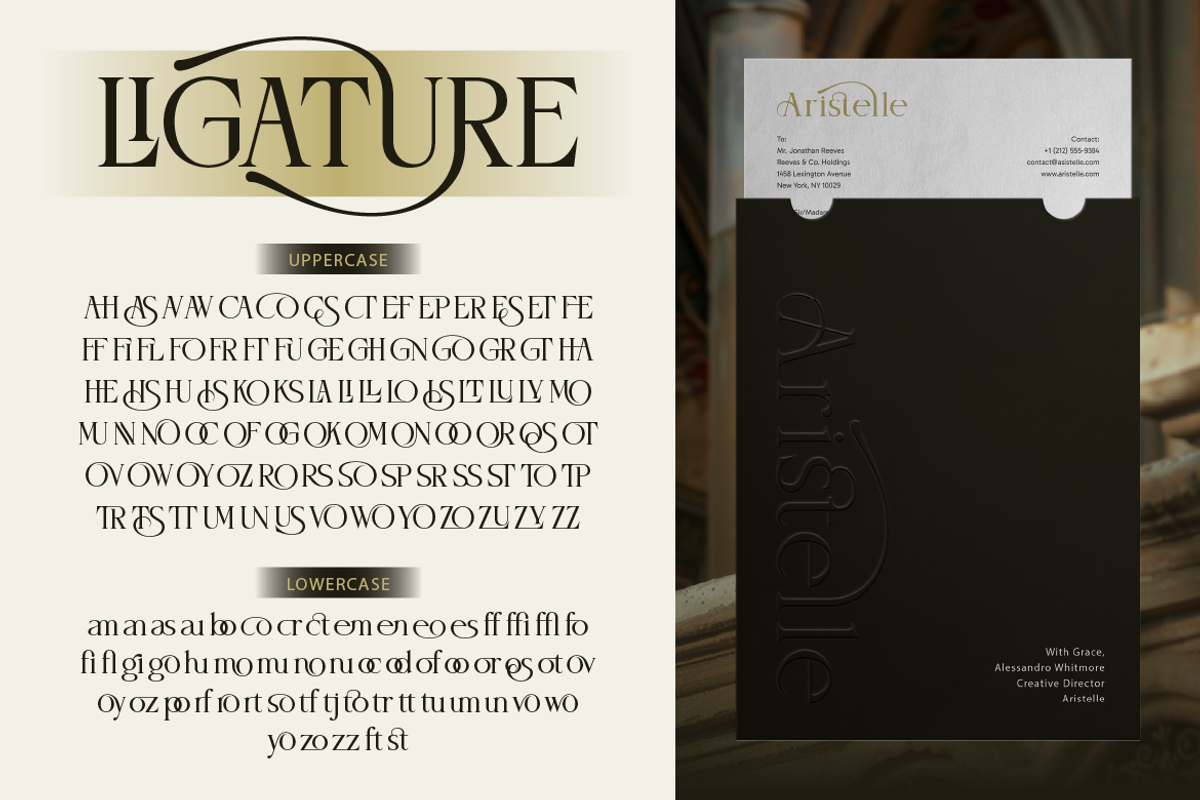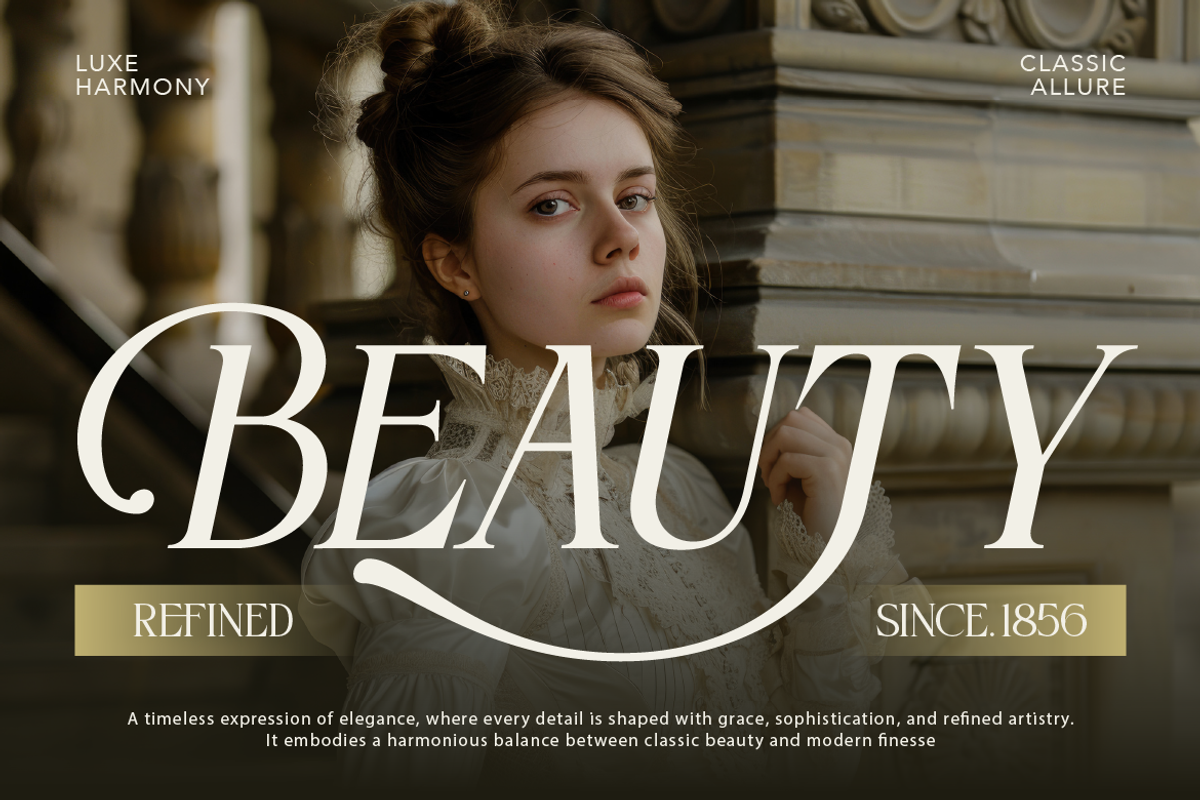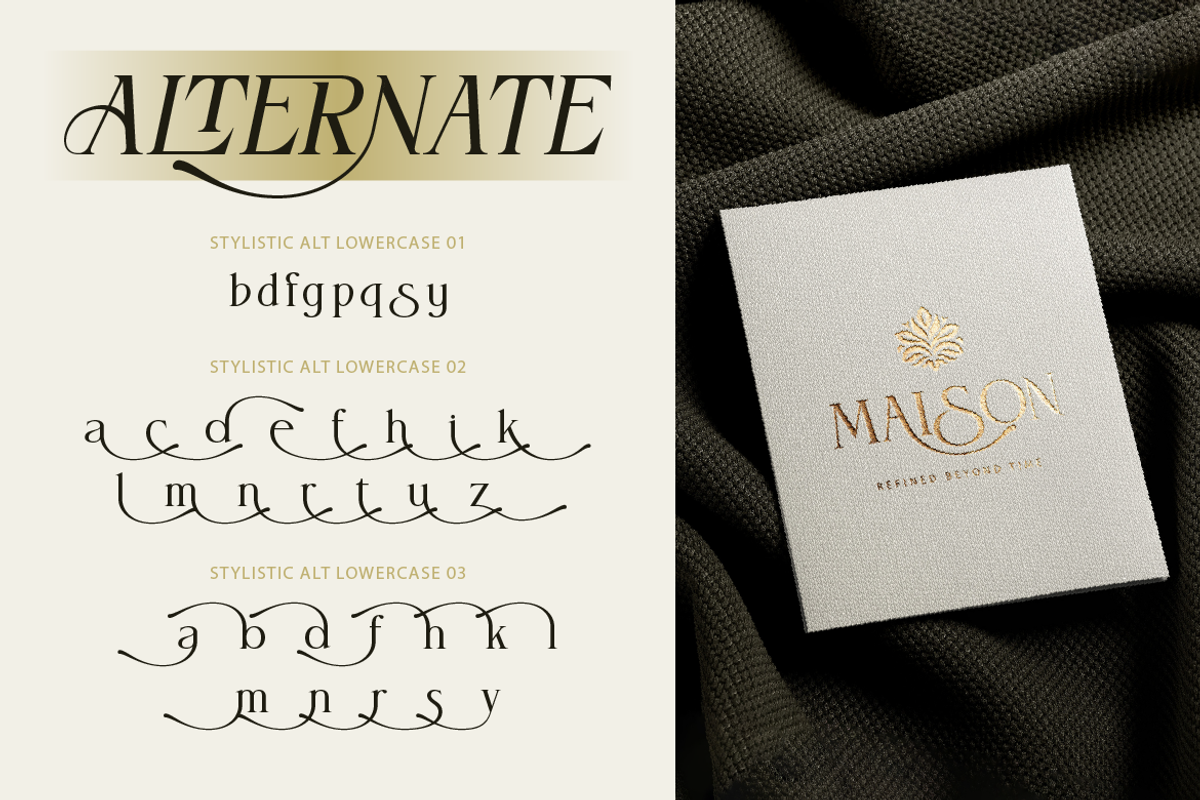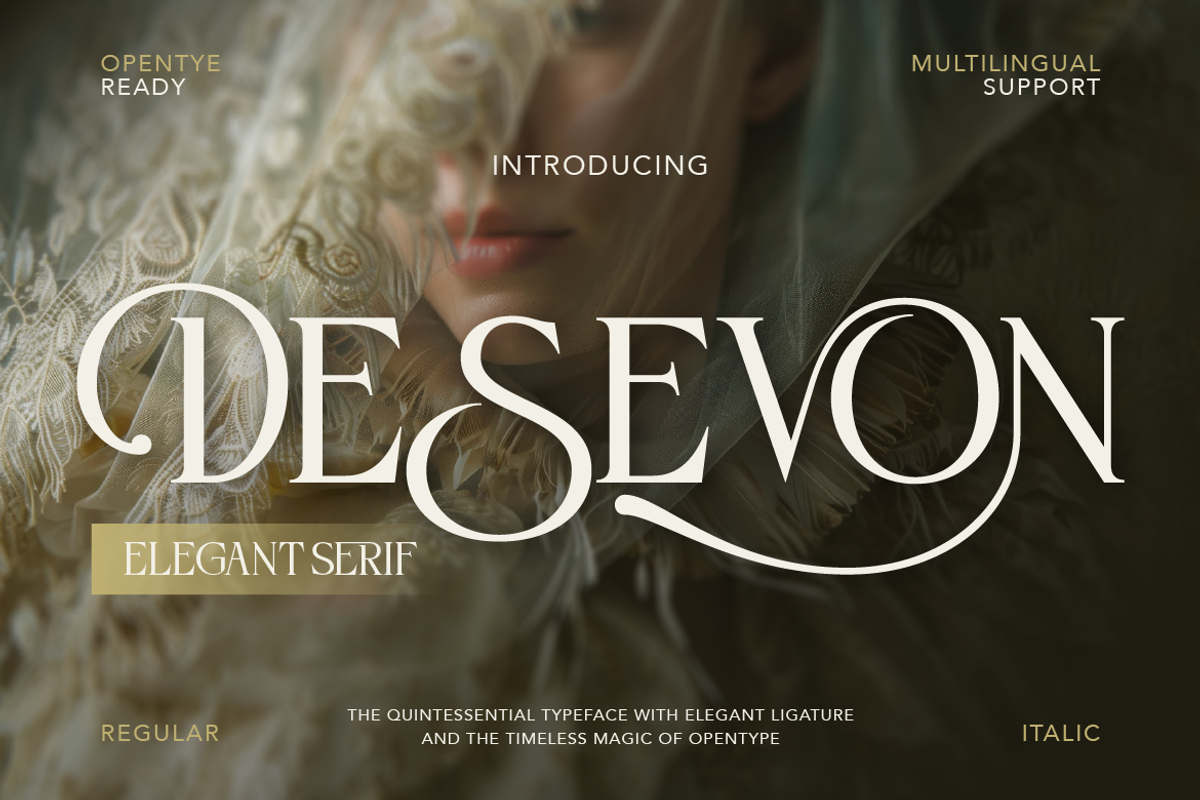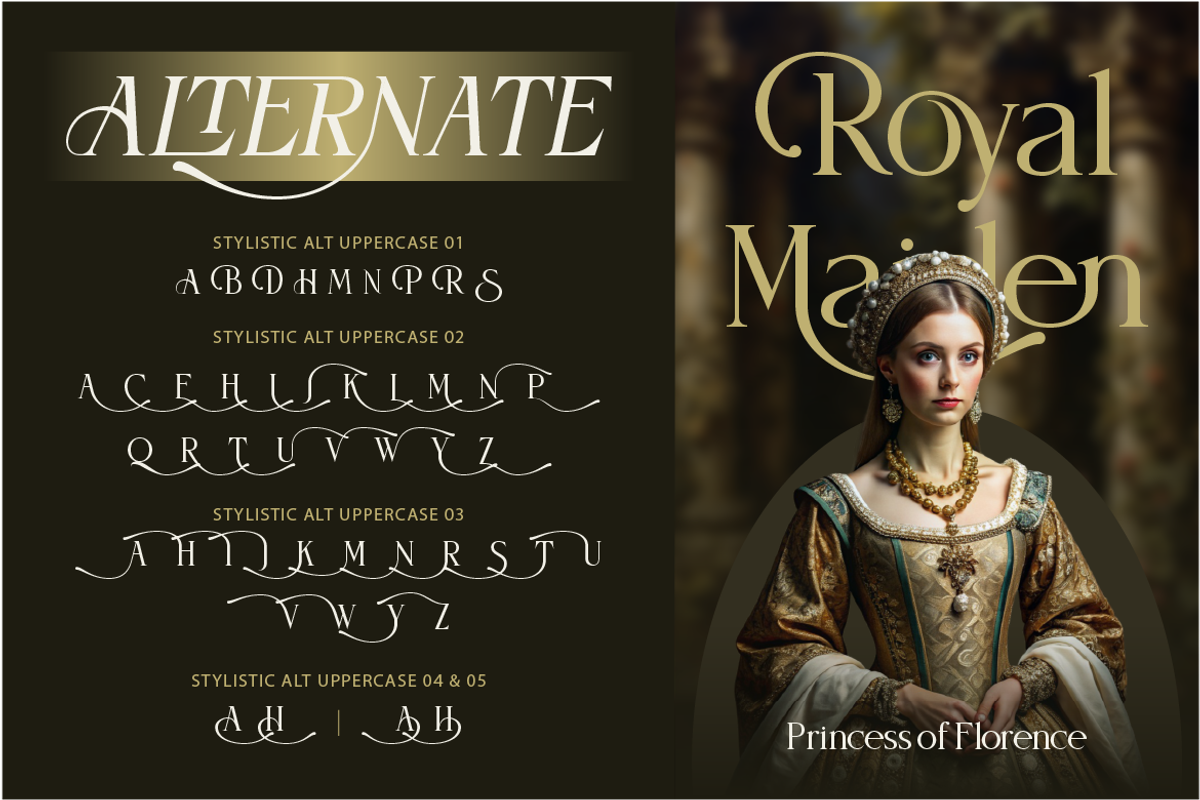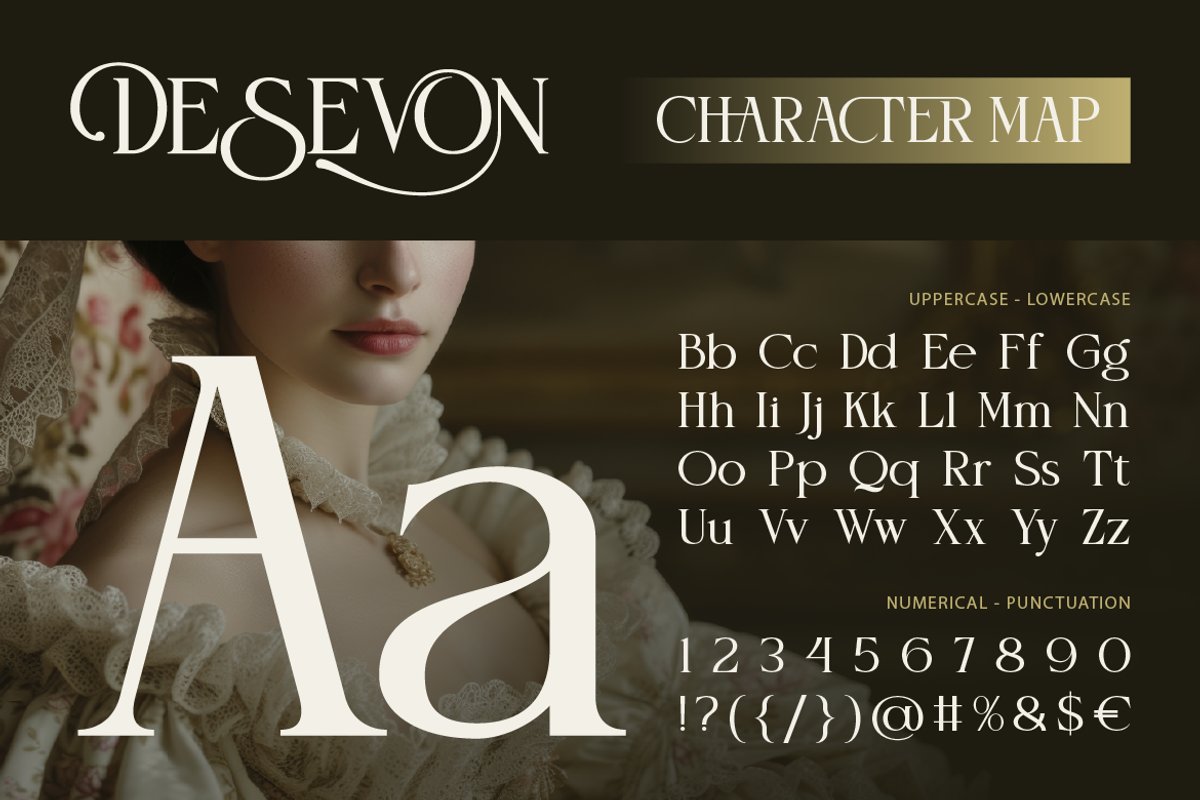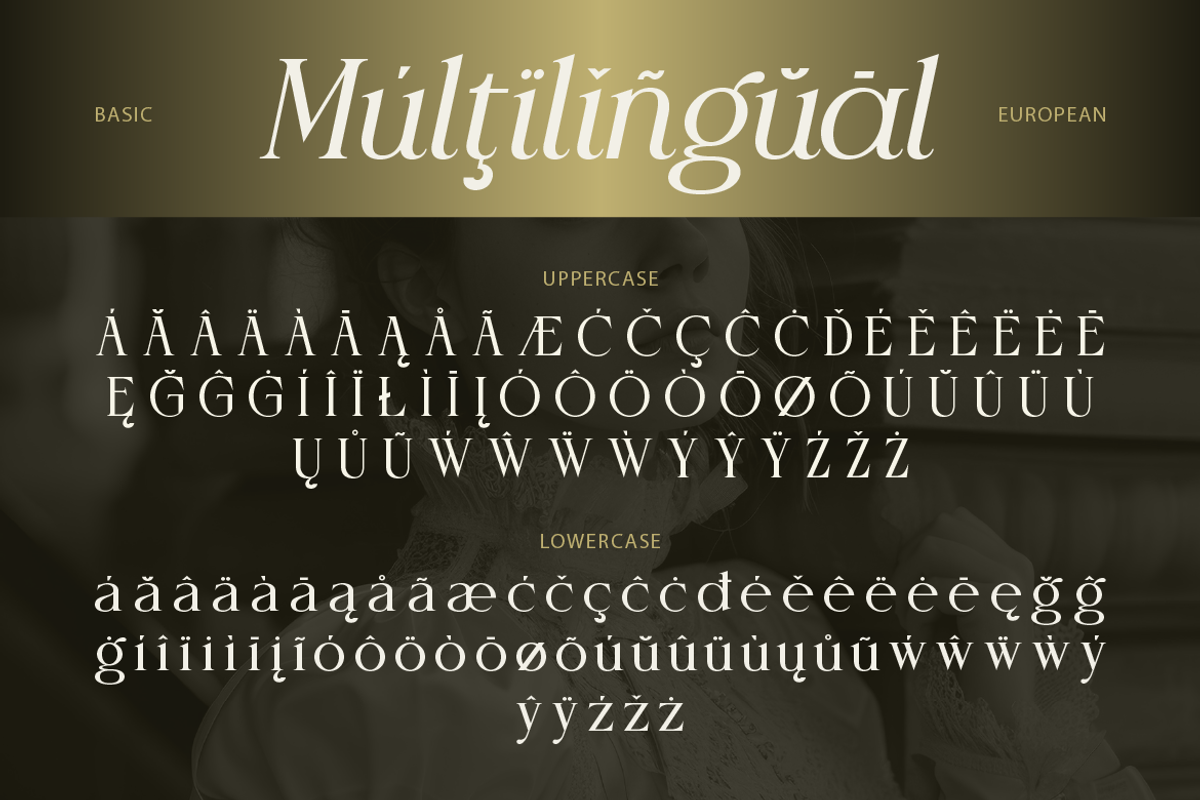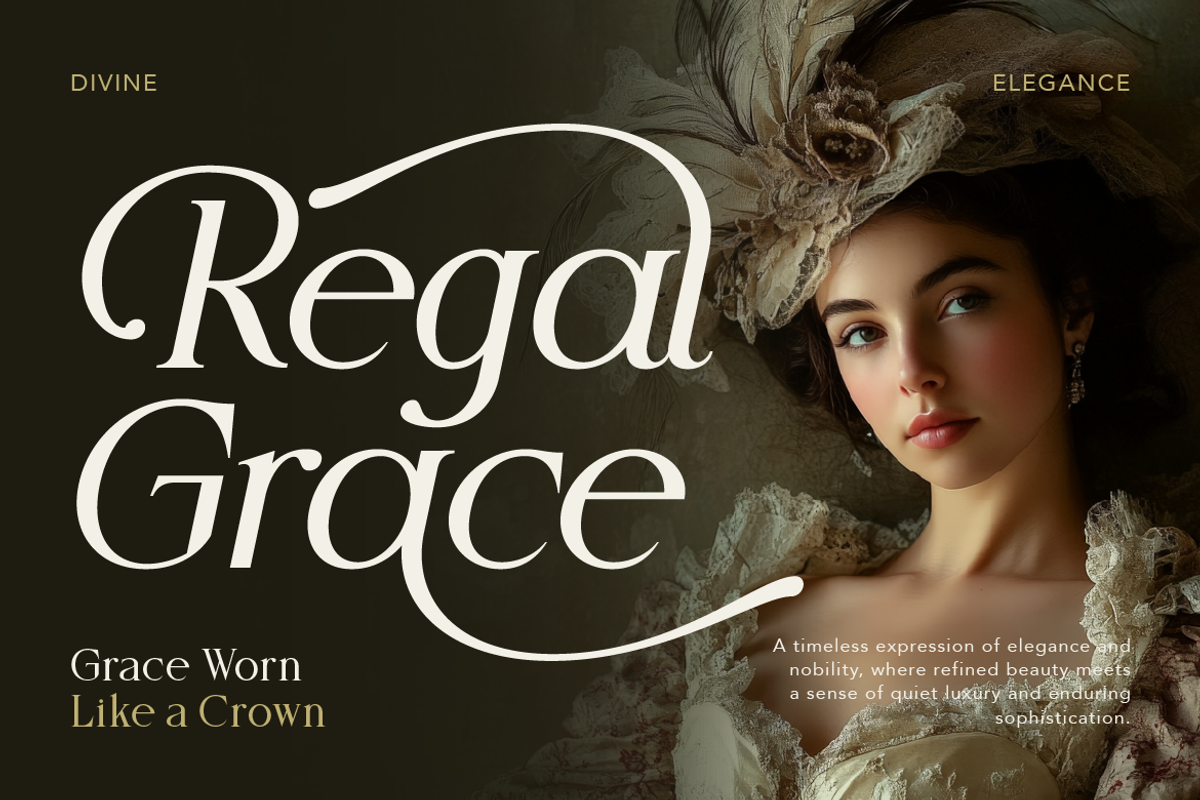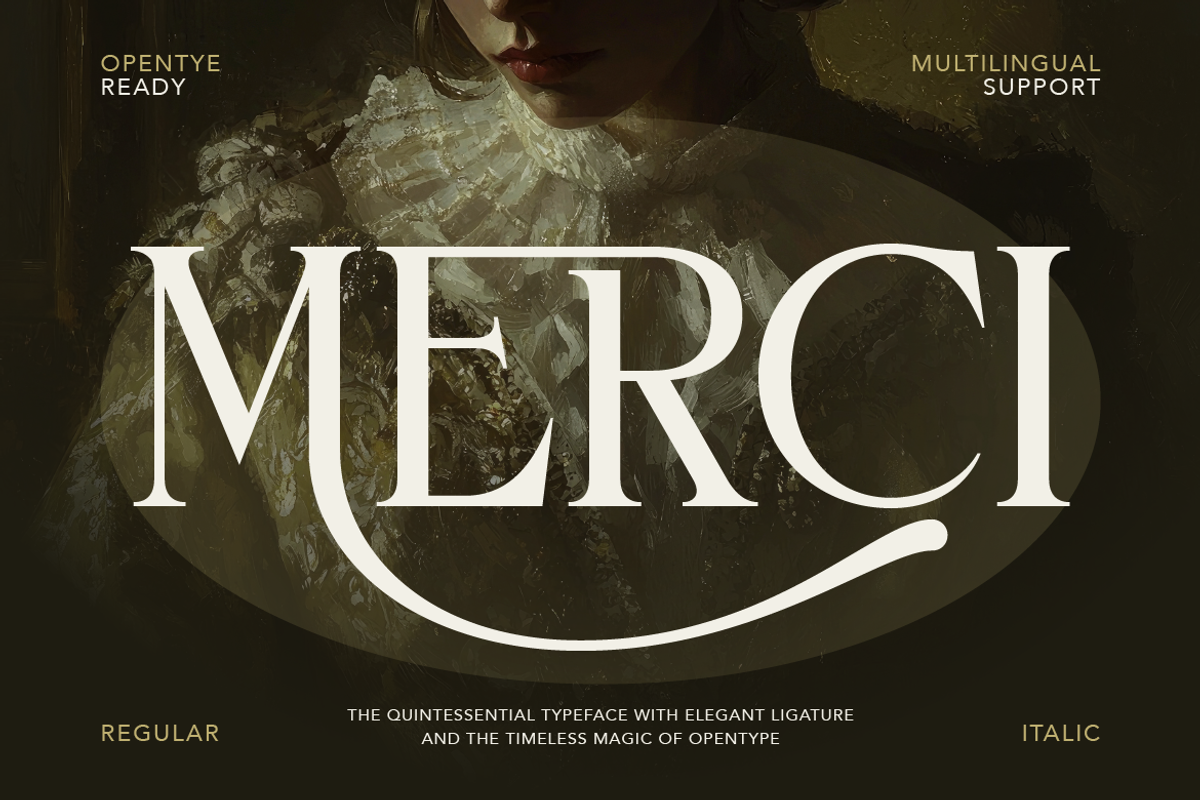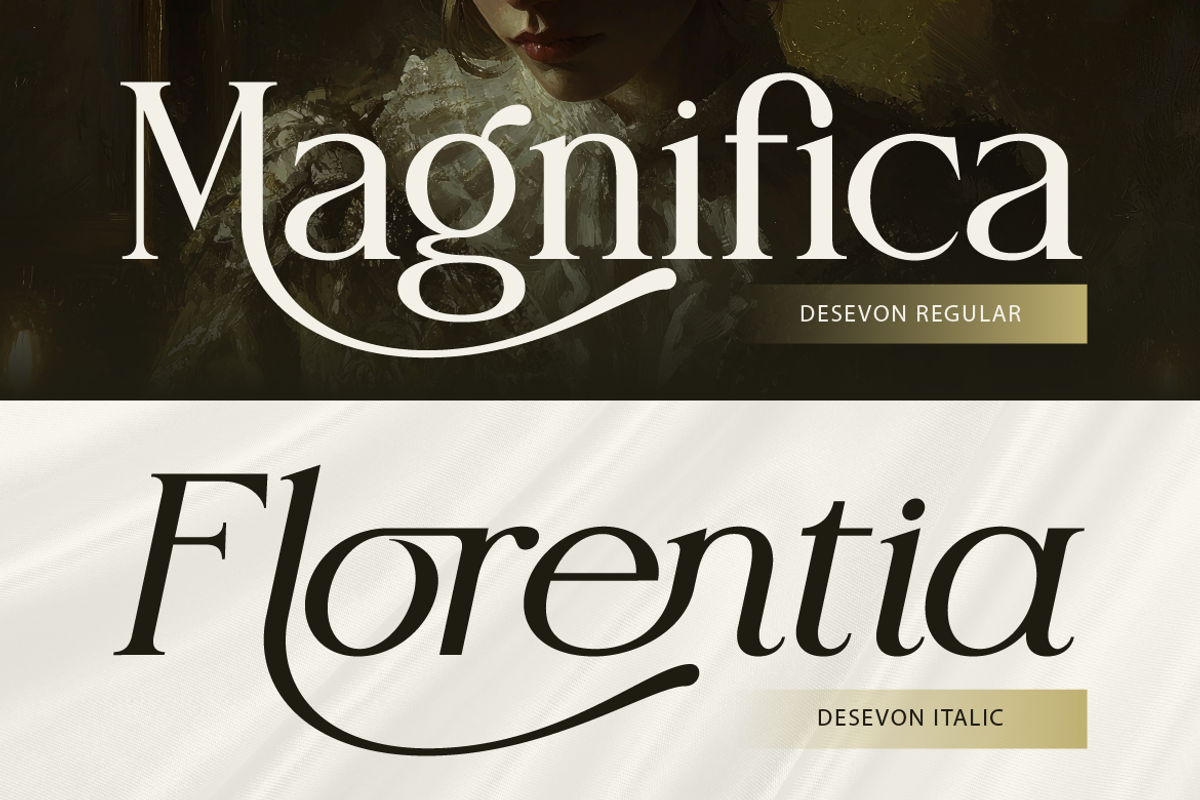
Desevon
Desevon is a refined and elegant serif typeface crafted to bring timeless beauty and modern sophistication into your designs. With its graceful curves, high-contrast strokes, and luxurious ligatures, Desevon captures the essence of classic typography while adding a contemporary touch.
Designed for creators who seek elegance and exclusivity, this font comes with stunning stylistic alternates and delicate swashes that flow effortlessly, making every word feel unique and expressive.
Whether you’re working on high-end branding, editorial layouts, wedding designs, or luxury packaging, Desevon delivers a perfect balance of classic charm and modern finesse.
Luxury branding & logos
Fashion editorials & magazines
Wedding invitations
Beauty & skincare packaging
Social media & Pinterest content
High-end product design